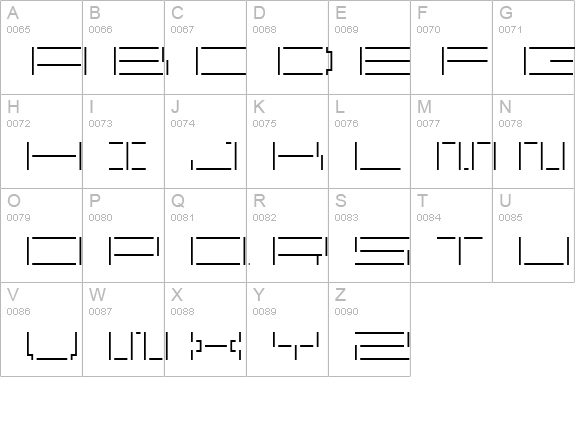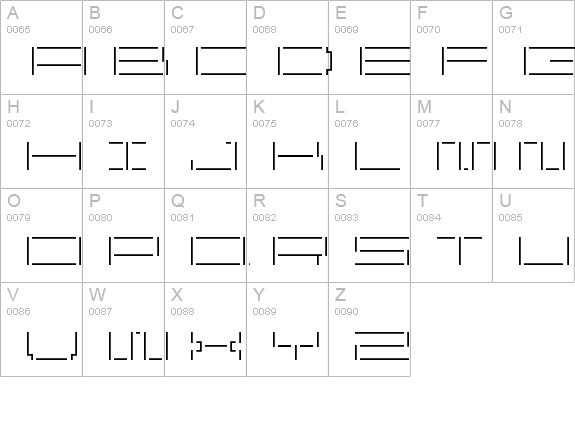
ReversionBroken Thin Font Details
ReversionBroken Thin is a delicate, low-contrast variant in the ReversionBroken typeface family \xE2\x80\x94 well suited to fashion editorial, minimal branding, and high-contrast display.
ReversionBroken Thin font is a captivating and artistic typeface that will add a touch of elegance and sophistication to any design project. Its delicate and slender letterforms are intricately crafted, making it ideal for creating eye-catching headlines, logos, and branding materials. This unique font exudes a sense of edginess and modernity, thanks to its broken and fragmented design. Each letter is meticulously designed to appear as if it has been shattered and reassembled, giving it a distinct and mesmerizing aesthetic. ReversionBroken Thin font is perfect for projects that require a bold and daring statement. Its thin and delicate strokes create a stunning contrast against the broken elements, resulting in a visually striking composition. The versatility of ReversionBroken Thin font allows it to be used in a wide range of design applications, from fashion magazines to music album covers. Its captivating appeal will draw the attention of viewers and leave a lasting impression. The best part about ReversionBroken Thin font is that it is available for free download at FontsMarket.com. This means that designers and creatives can easily access and utilize this stunning typeface without any cost. Whether you are a professional designer or a hobbyist, ReversionBroken Thin font offers a world of possibilities to elevate your designs. So, if you are looking for a unique and captivating font that will make your designs stand out, look no further than ReversionBroken Thin font. Download it for free at FontsMarket.com and unlock a world of creativity and inspiration.